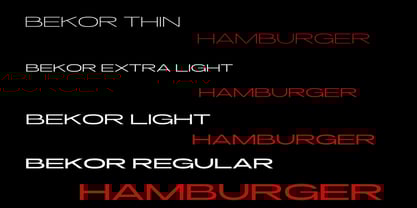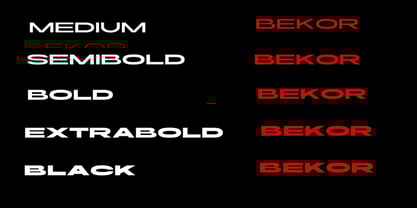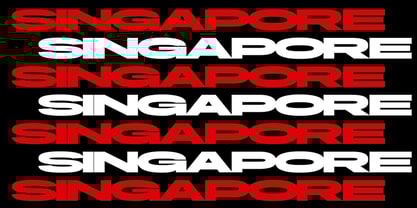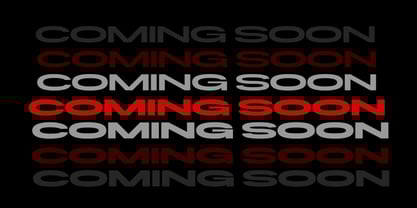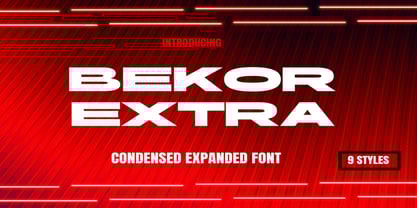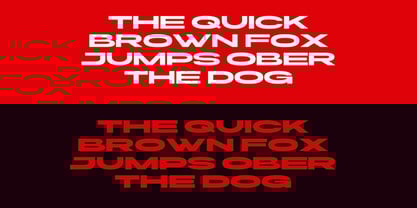
Bekor
by Dream Font
The Bekor Font Family was designed by Noah Rothschild and published by Dream Font. Bekor contains 5 styles and family package options.
Bekor Expanded is a strong and modern sans serif font. It comes in three different styles that you can mix to get a better look! This fantastic font is best suited for headlines of all sizes, as well as for blocks of text that have both maximum and minimum variations. Whether it’s for web, print, moving images or anything else – Bekor Expanded will look spectacular.